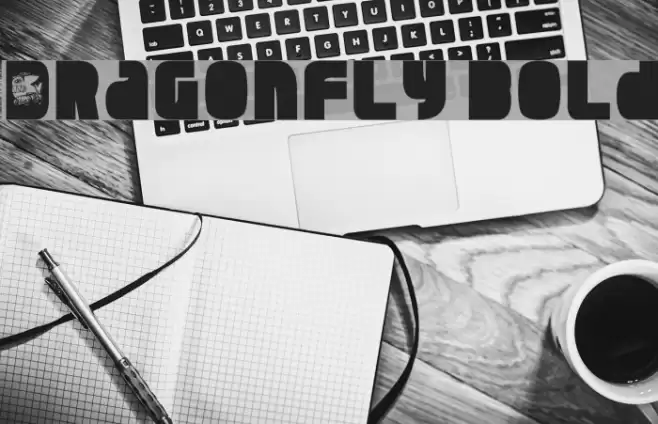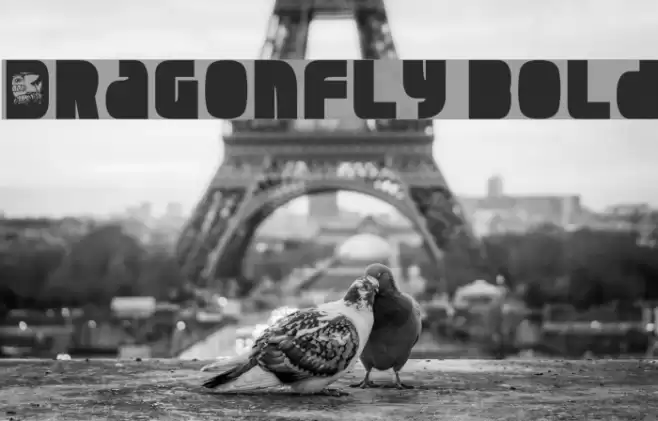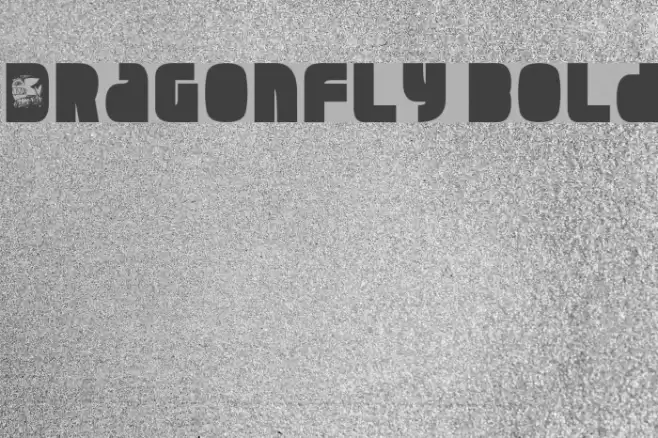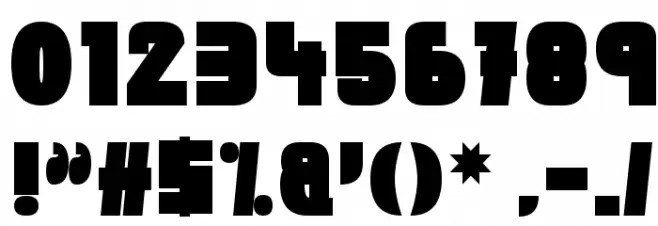
Dragonfly Bold Font
Dragonfly Bold Description
This bold, decorative font features a strong, geometric design with thick, block-like characters. The uppercase letters are particularly striking, with a uniform height and width that gives them a commanding presence. The lowercase letters maintain the boldness but introduce slight curves, adding a touch of softness to the overall appearance. The numerals are equally robust, ensuring consistency across all characters. Special characters are designed with the same boldness, making them stand out effectively. This font's high contrast and solid structure make it ideal for attention-grabbing designs.
A bold, geometric font with strong, block-like characters and high contrast from Uncategorized fonts.
- Proposed Projects: Ideal for posters, headlines, logos, and any design requiring a bold, impactful typeface.